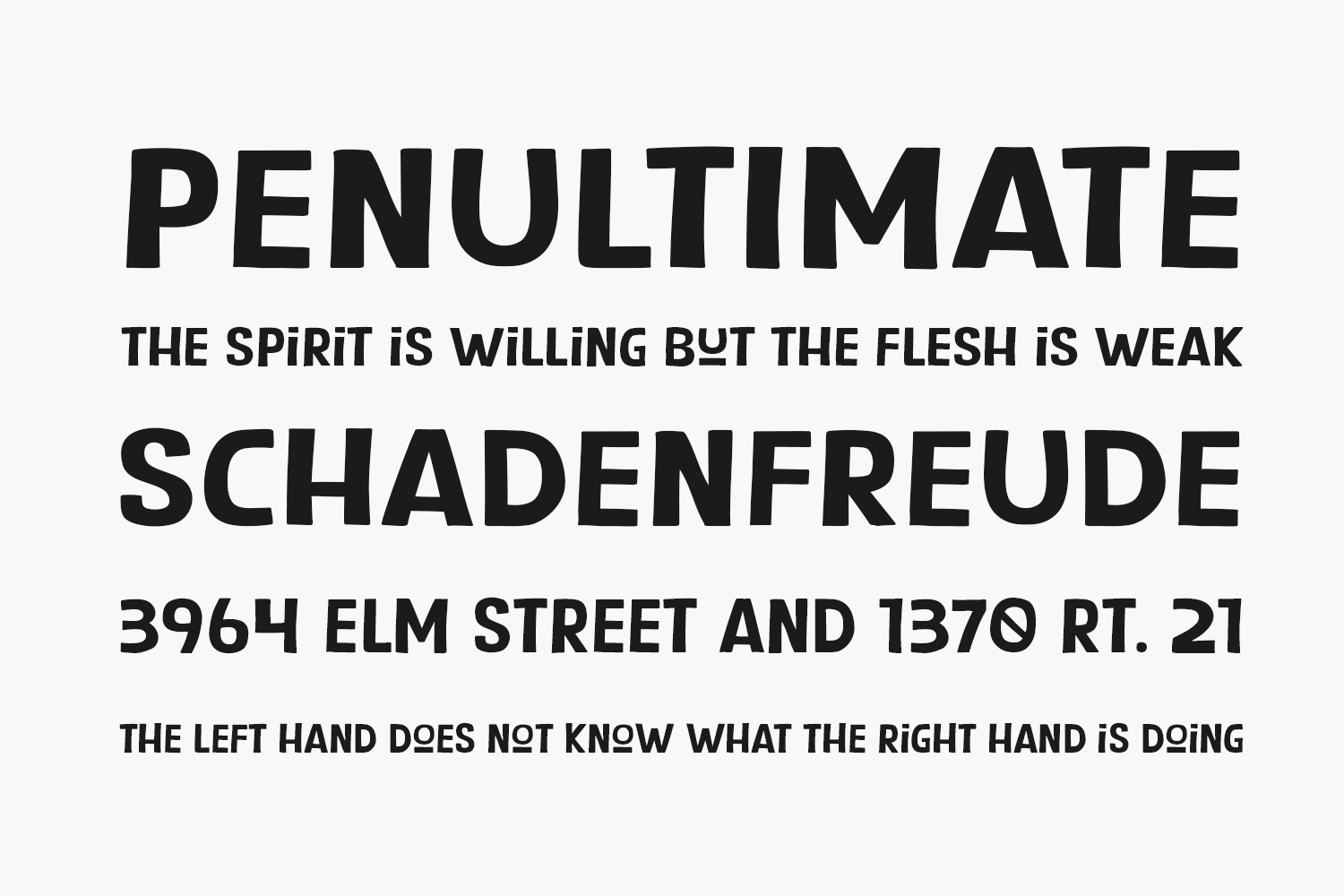
Kopiku is a modern and adorable display font designed by Khurasan to bring charm and clarity to your creative projects. With its clean lines, rounded edges, and playful appearance, this free decorative typeface works perfectly for crafting cute logos, posters, book covers, social media graphics, and more. Available in TTF and OTF formats with support for Latin characters — ideal for designers looking to add a touch of fun and style to their work.
Why Choose Kopiku?
- Cute & Friendly Style: Rounded shapes and soft curves create a warm, approachable look perfect for kids’ or lifestyle branding.
- Ideal for Posters & Logos: Perfect for large text applications like magazine headers, event banners, or brand identities.
Where to Use Kopiku?
Kopiku shines across a variety of creative applications:
- Logos & Branding: Adds warmth and friendliness to brand kits for cafes, bakeries, or children’s brands.
- Social Media Graphics: Creates bold, elegant text overlays for Instagram Stories, TikTok videos, and Pinterest pins.
- Book Covers & Titles: Ideal for novels, journals, greeting cards, and stationery sets needing a playful tone.
- Packaging Design: Perfect for product labels on toys, mugs, notebooks, and handmade goods.
- Editorial Headers: Brings personality to blog titles, magazine covers, and digital banners.